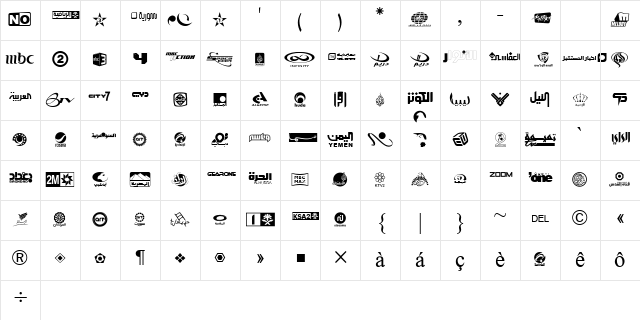
Complete Arab TV logos Regular glyph index. Displaying only characters natively supported by Arab TV logos Regular font.
Arab TV logos is a composed and adaptable typeface that performs quietly and consistently across a wide range of design contexts.